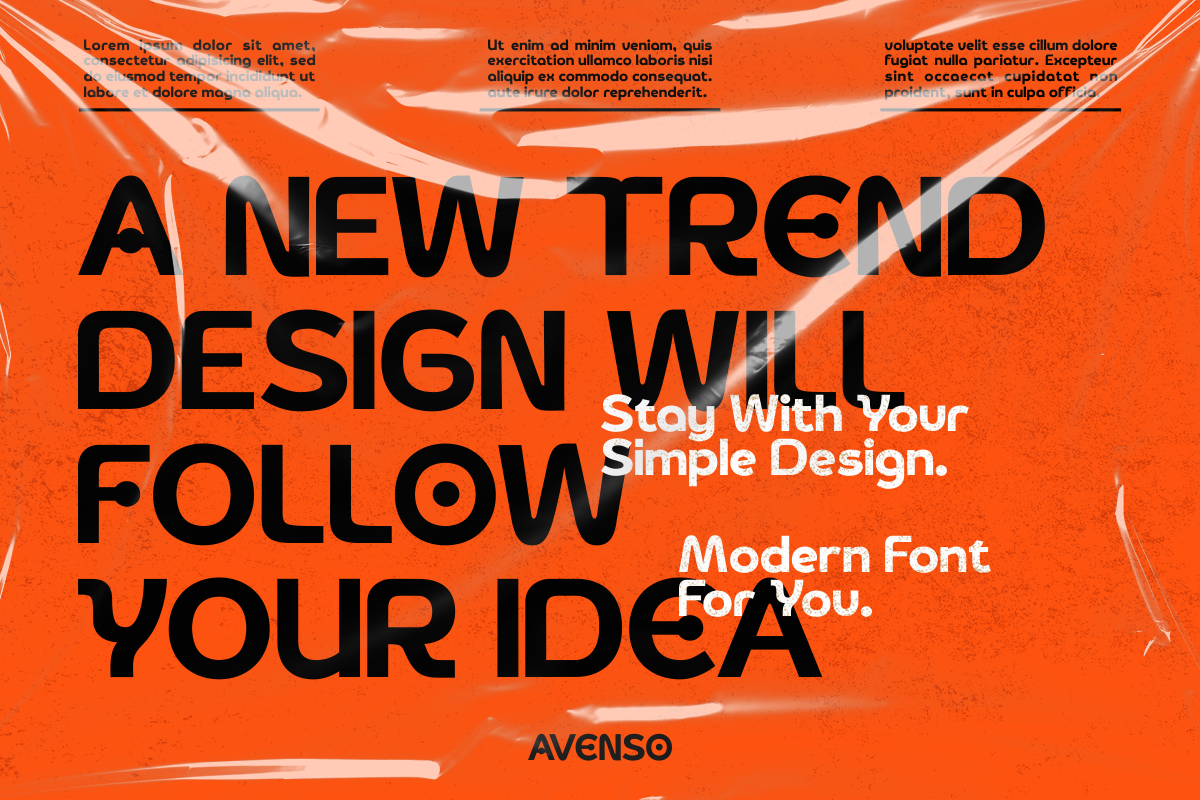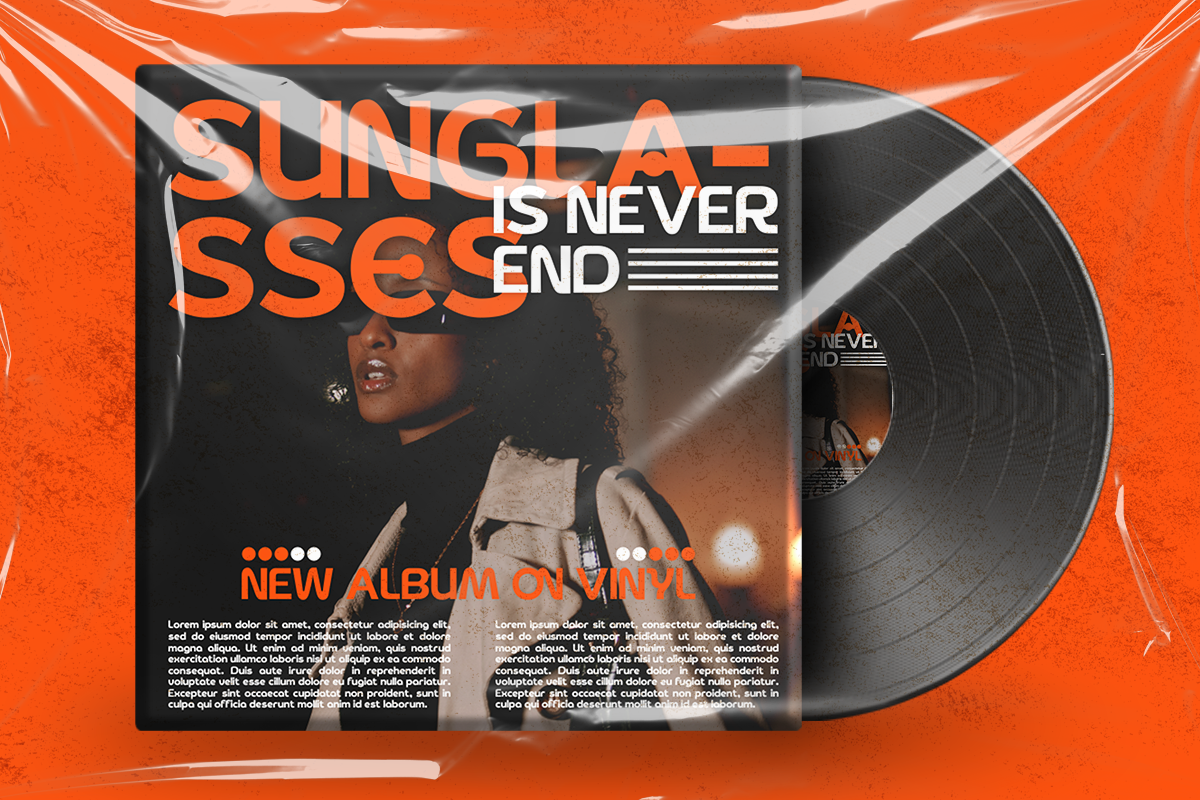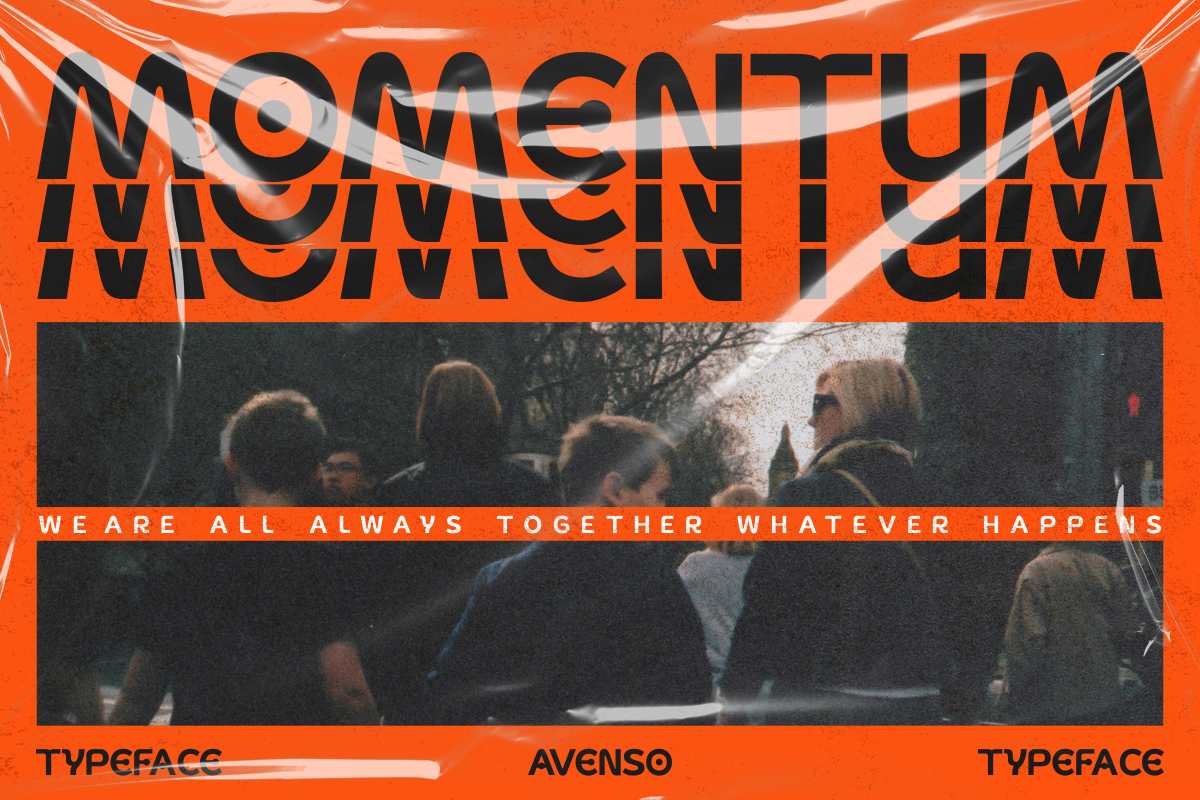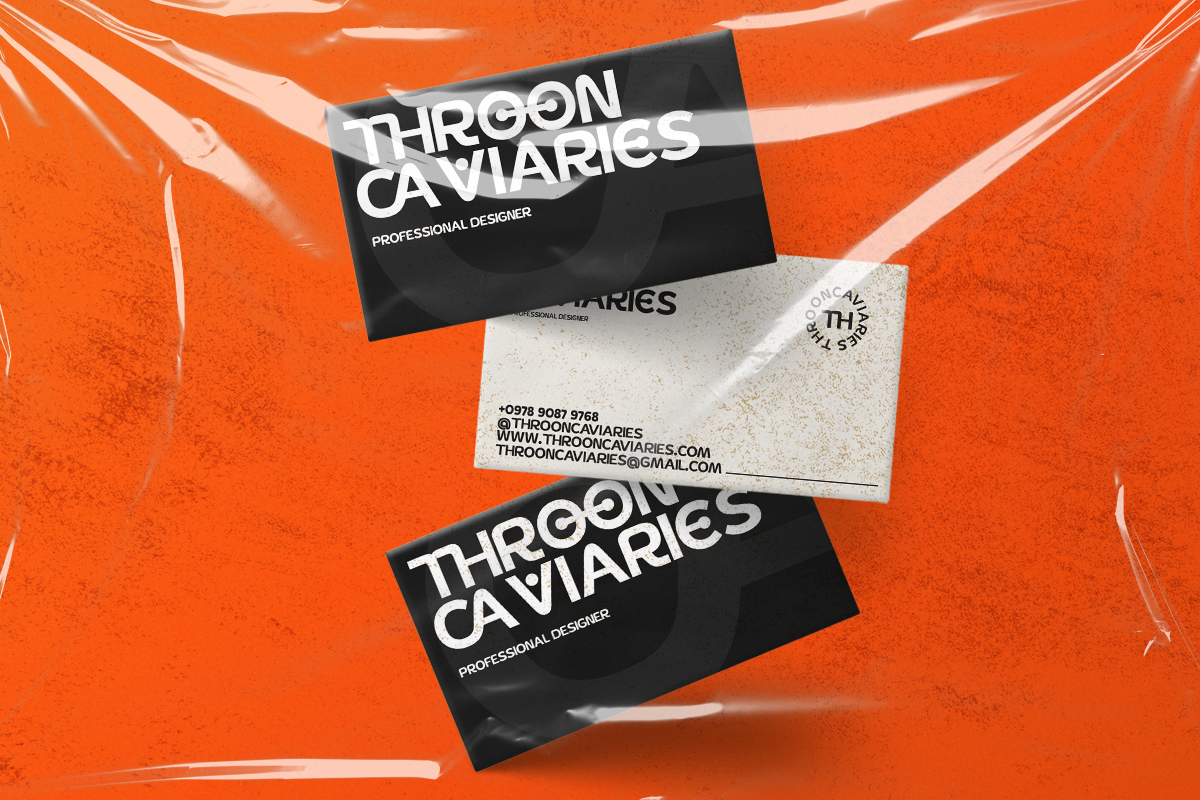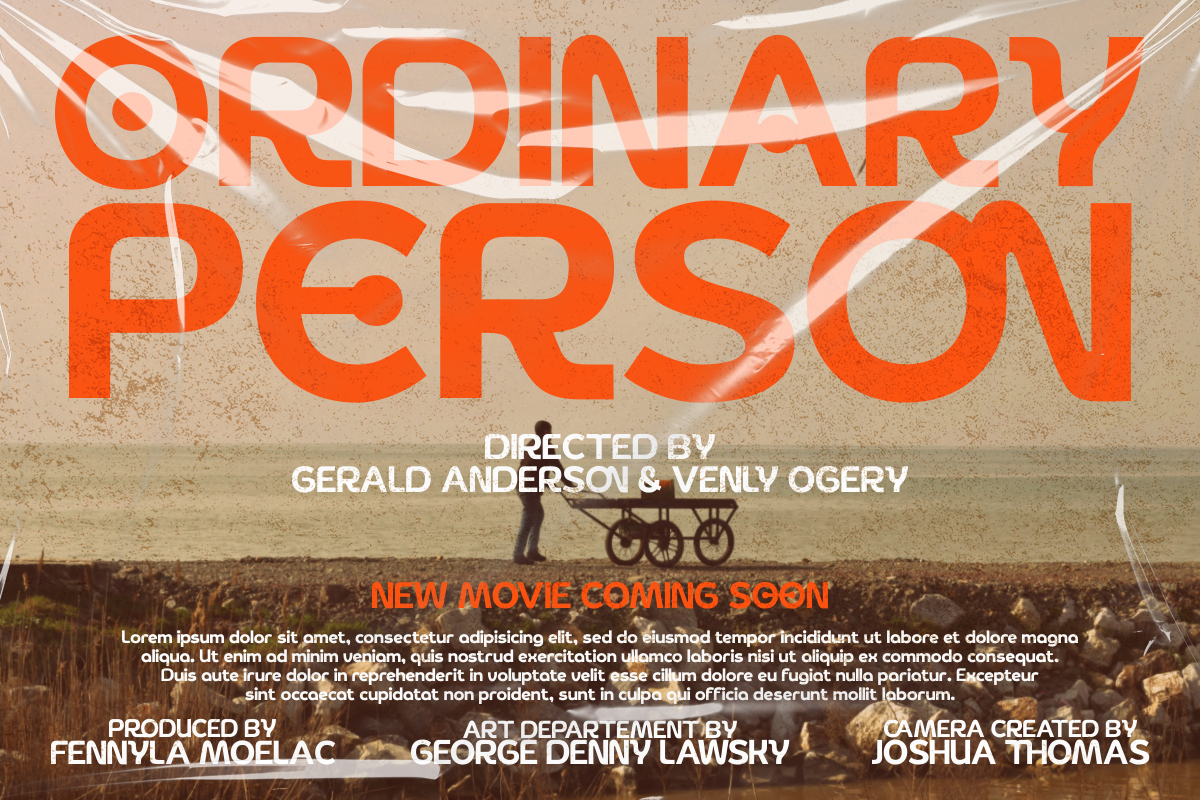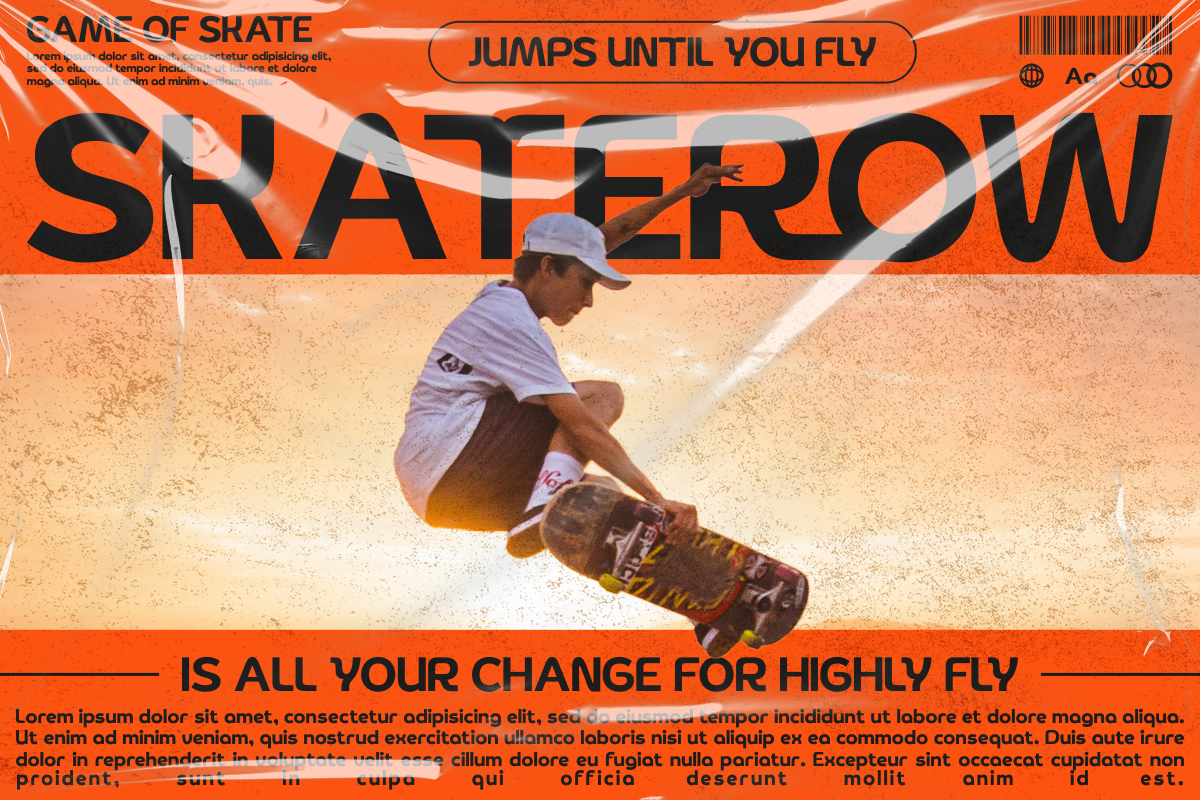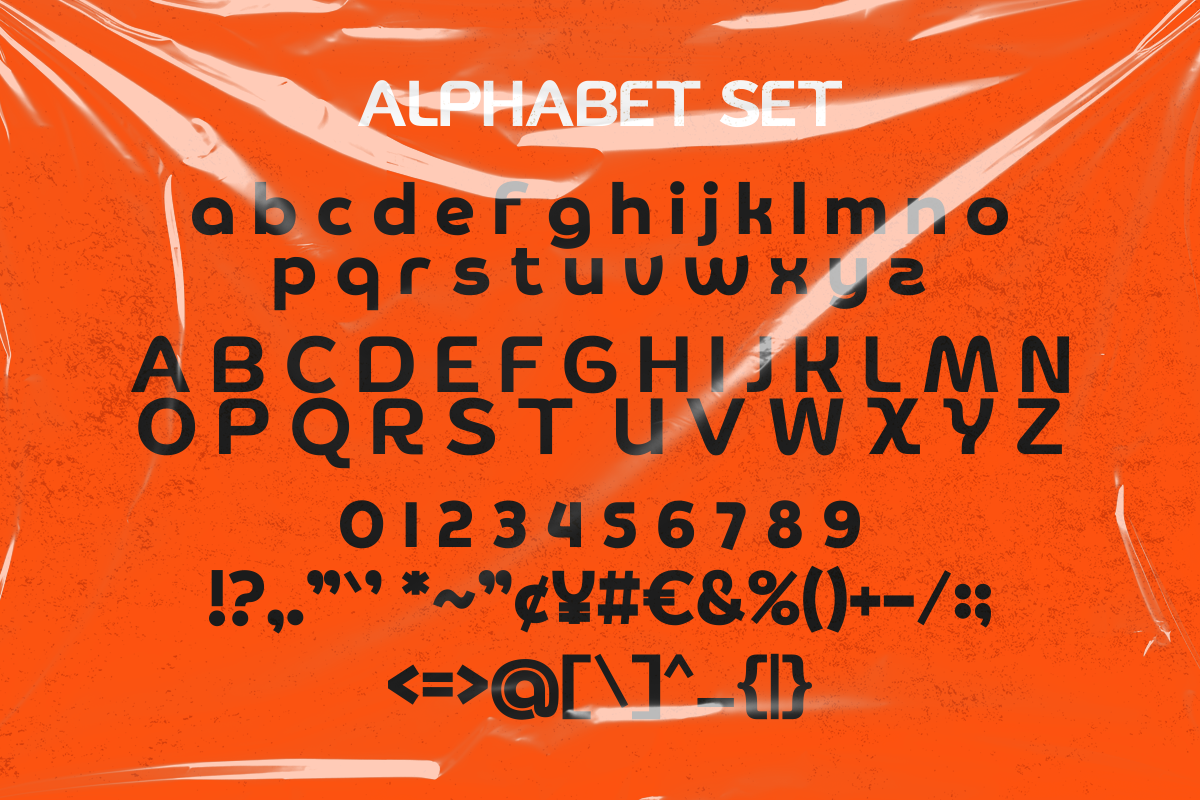
Avenso Unique Sans Serif Font was designed to present a cool and bold impression to anyone who sees it. This is in line with the characteristics of the letters in the Avenso Unique Sans Serif Font is cool and unique. This font stands tall and exudes a confident vibe. People who read various texts using this type of font don't bother to be able to read and understand this font. In other words, Avenso Unique Sans Serif Font is legible. Avenso Unique Sans Serif Font is very suitable for use as a font for all products. Those who like simple letters but are still aesthetic will choose this font. Cool and modern impressions can be used for banners, posters, and merchandise. This font can be printed small or large and still looks great from close up or afar. This font can be used for magazine covers and reading books. Not only that, Avenso Unique Sans Serif Font can be used as a digital font. The font can be applied to a video intro title and outro. This font is suitable for product branding. These can be product brand tags and advertising posters. This font can also be used as a business card. Based on the Avenso Unique Sans Serif Font function description, this font can be used as a digital and print font. Our sans serif font collection is compatible to use as Figma font, Canva fonts, Freepik Fonts, and Adobe Fonts. They also work as Windows and Apple Fonts. For your social media needs, you can use and install fonts in our Sans Serif font collection to use as Instagram Fonts, Facebook Fonts, and Twitter Fonts.